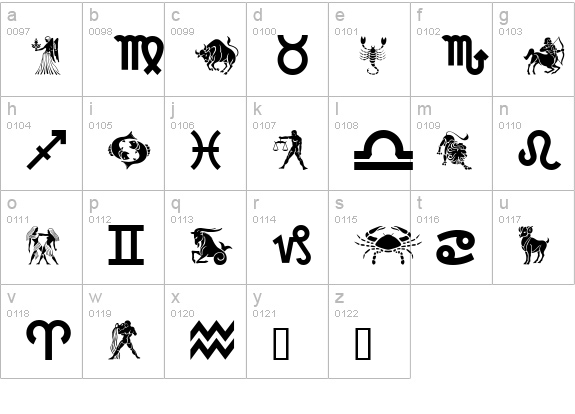
GE Zodiac Font Details
The GE Zodiac font is a unique and stylish typeface that brings a touch of modern elegance to any design project. With its sleek lines and captivating curves, this font is sure to make a statement and leave a lasting impression. The GE Zodiac font is perfect for a variety of uses, from branding and logo design to social media graphics and website headers. Best of all, the GE Zodiac font is completely free to download at FontsMarket.com. This means you can add this stunning font to your collection without breaking the bank. Don't miss out on the opportunity to elevate your designs with the GE Zodiac font - download it today and start creating beautiful typographic masterpieces!